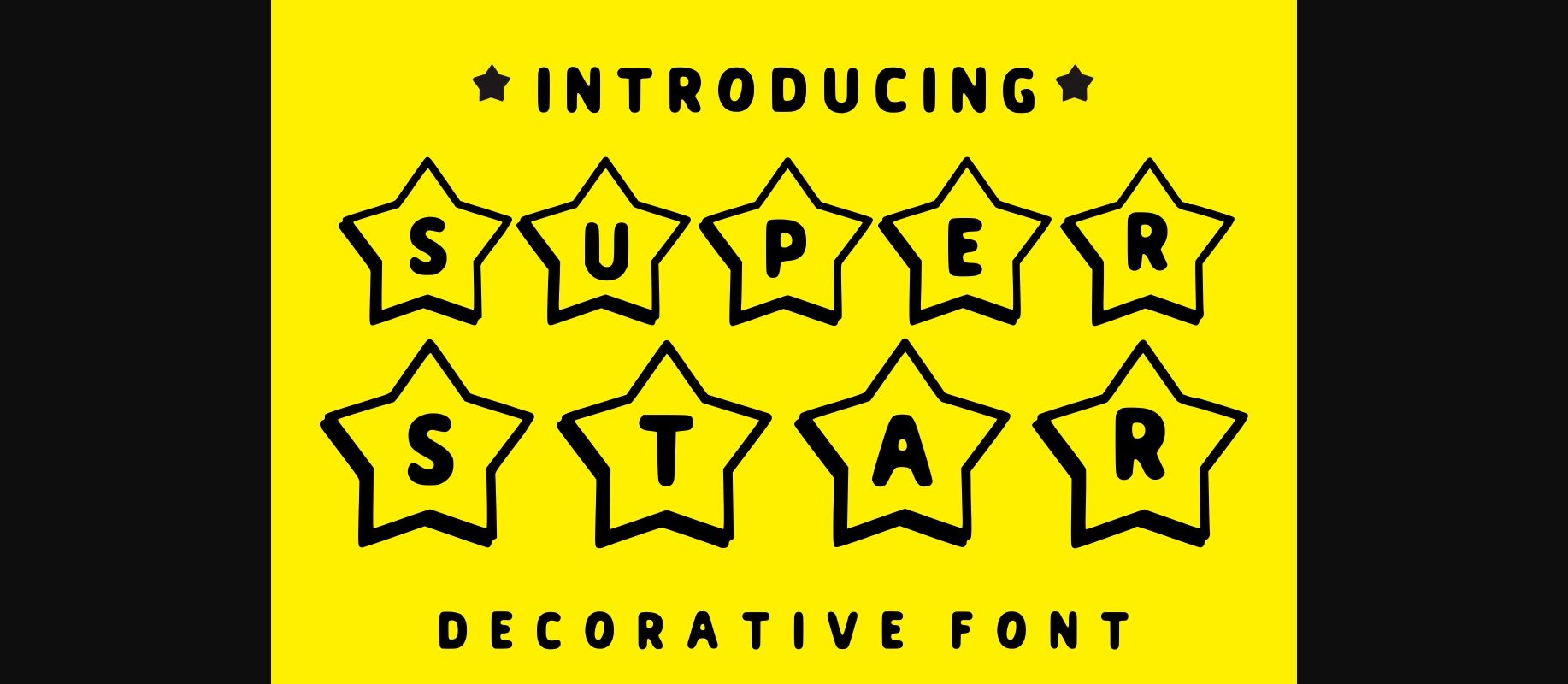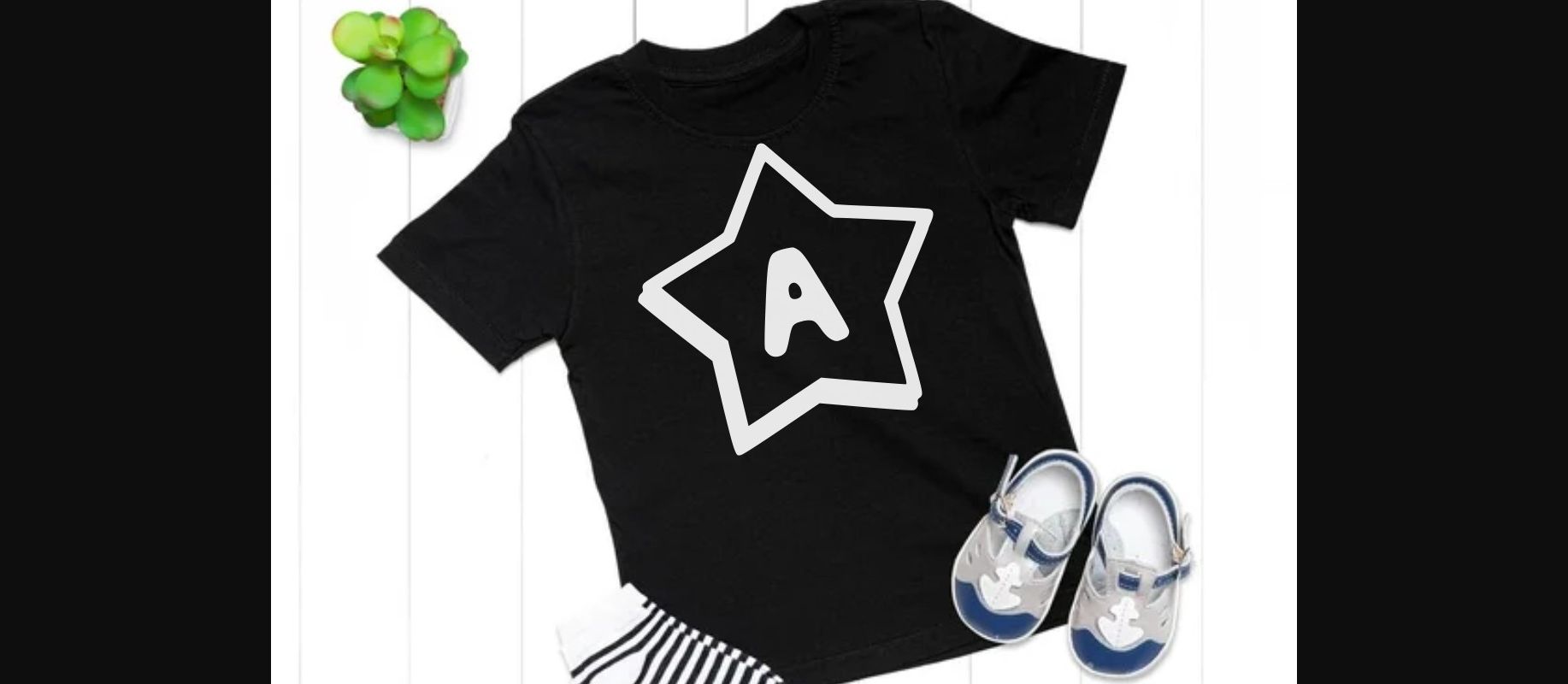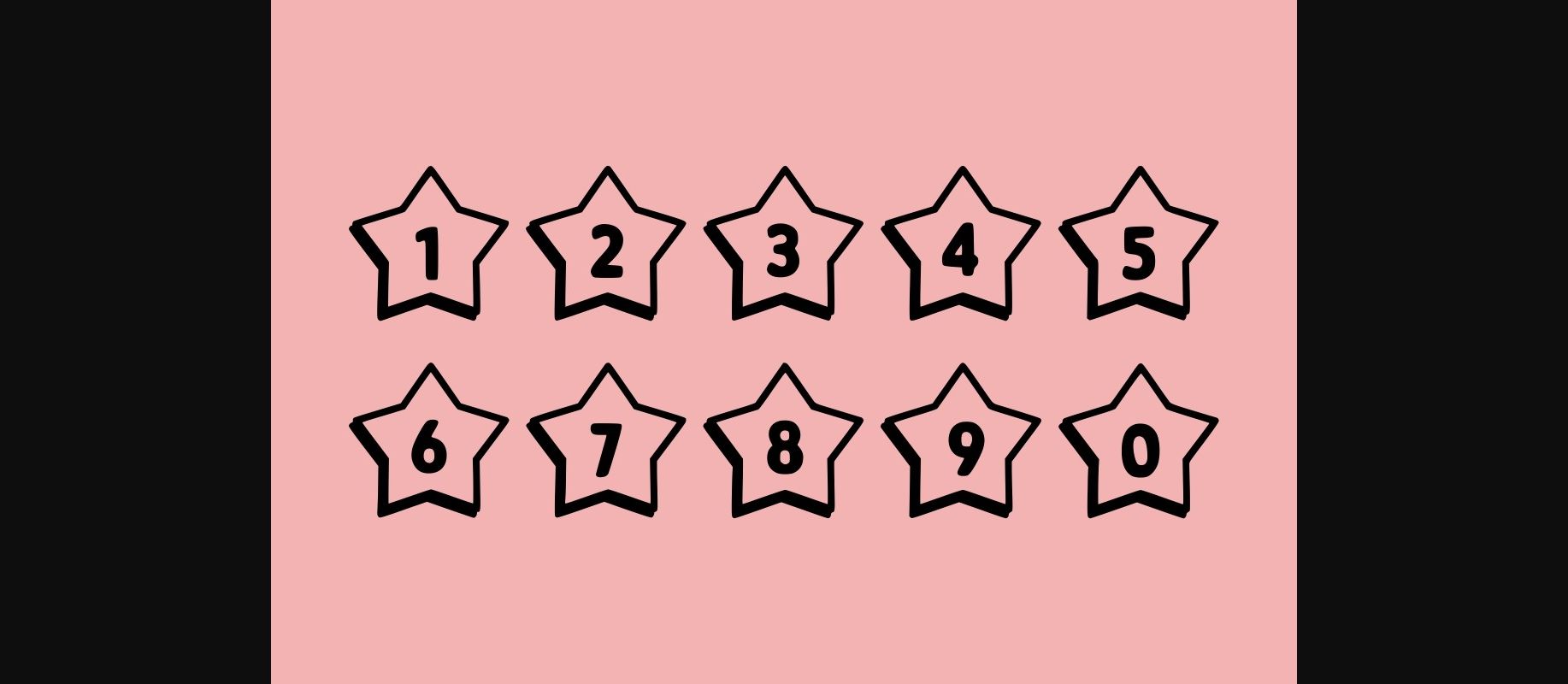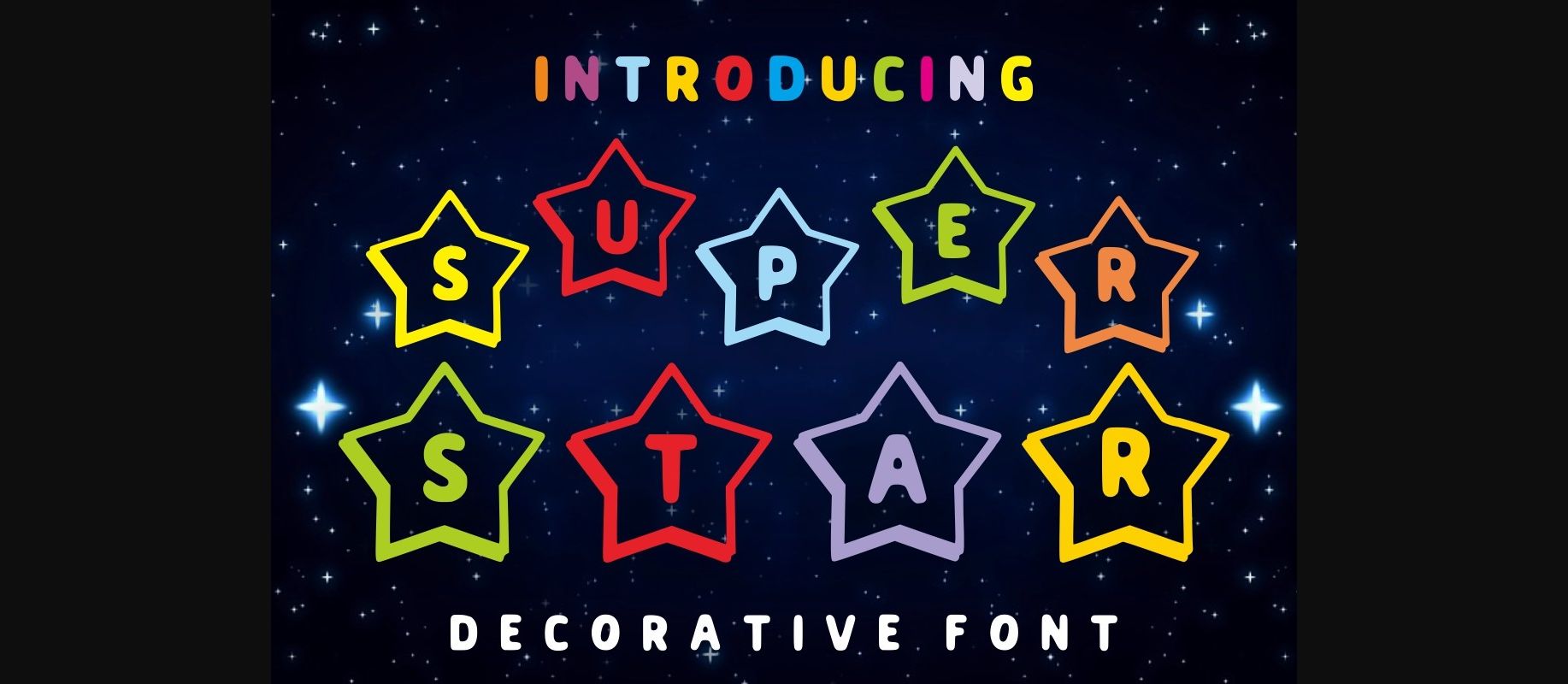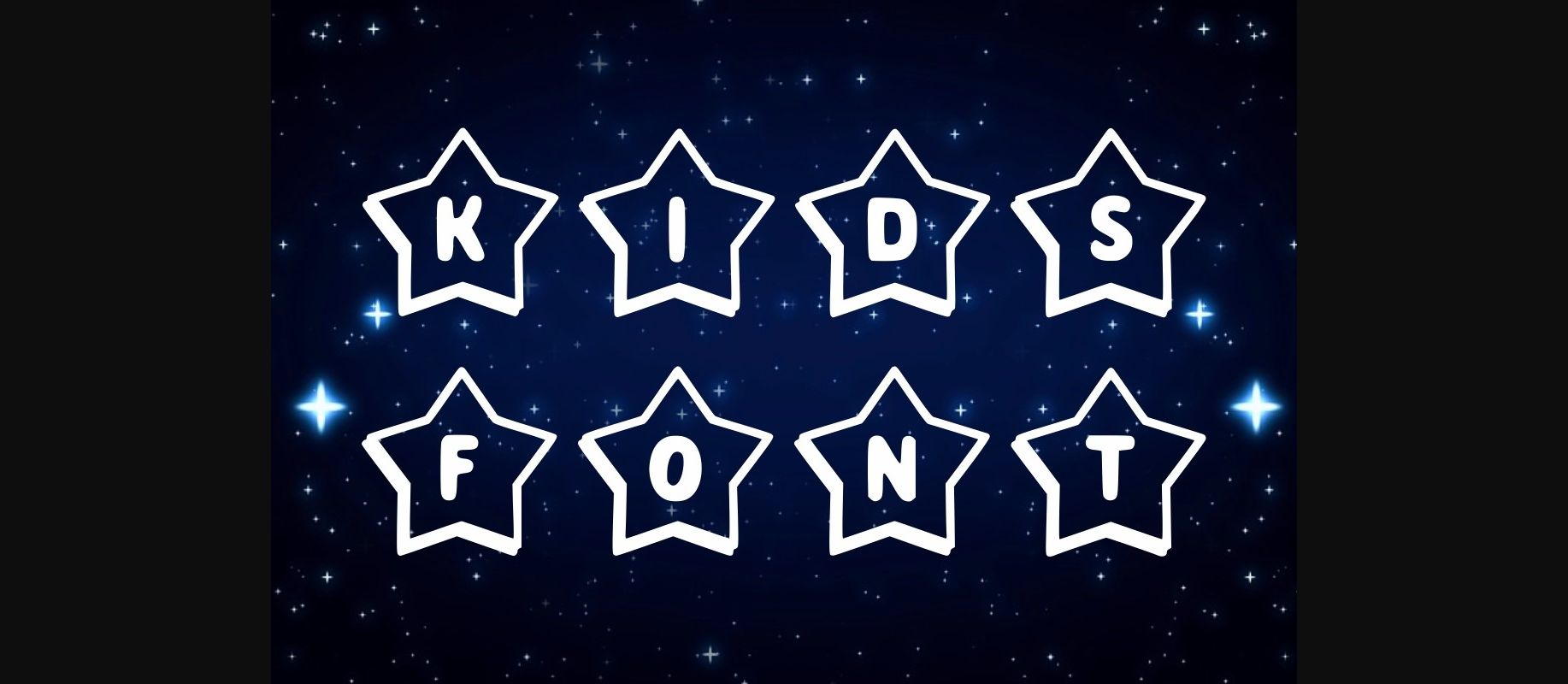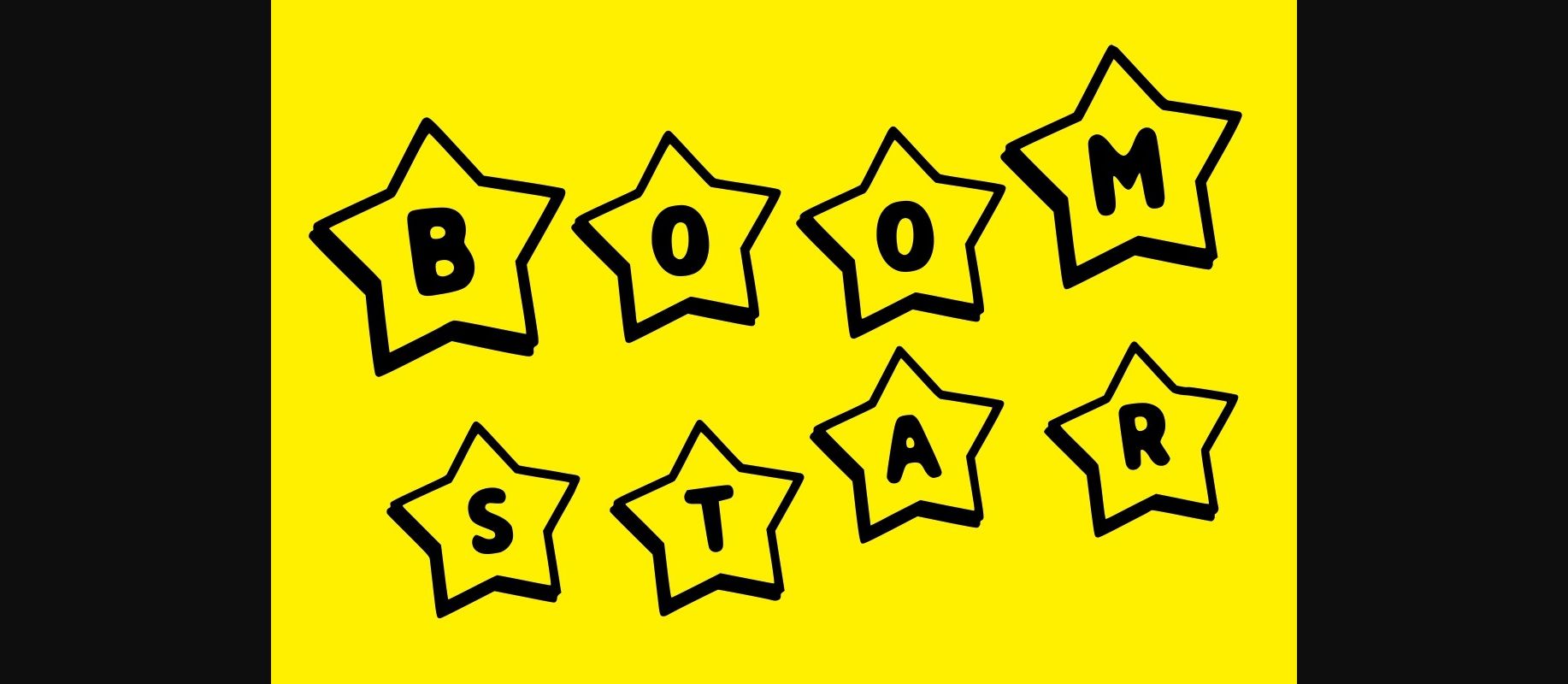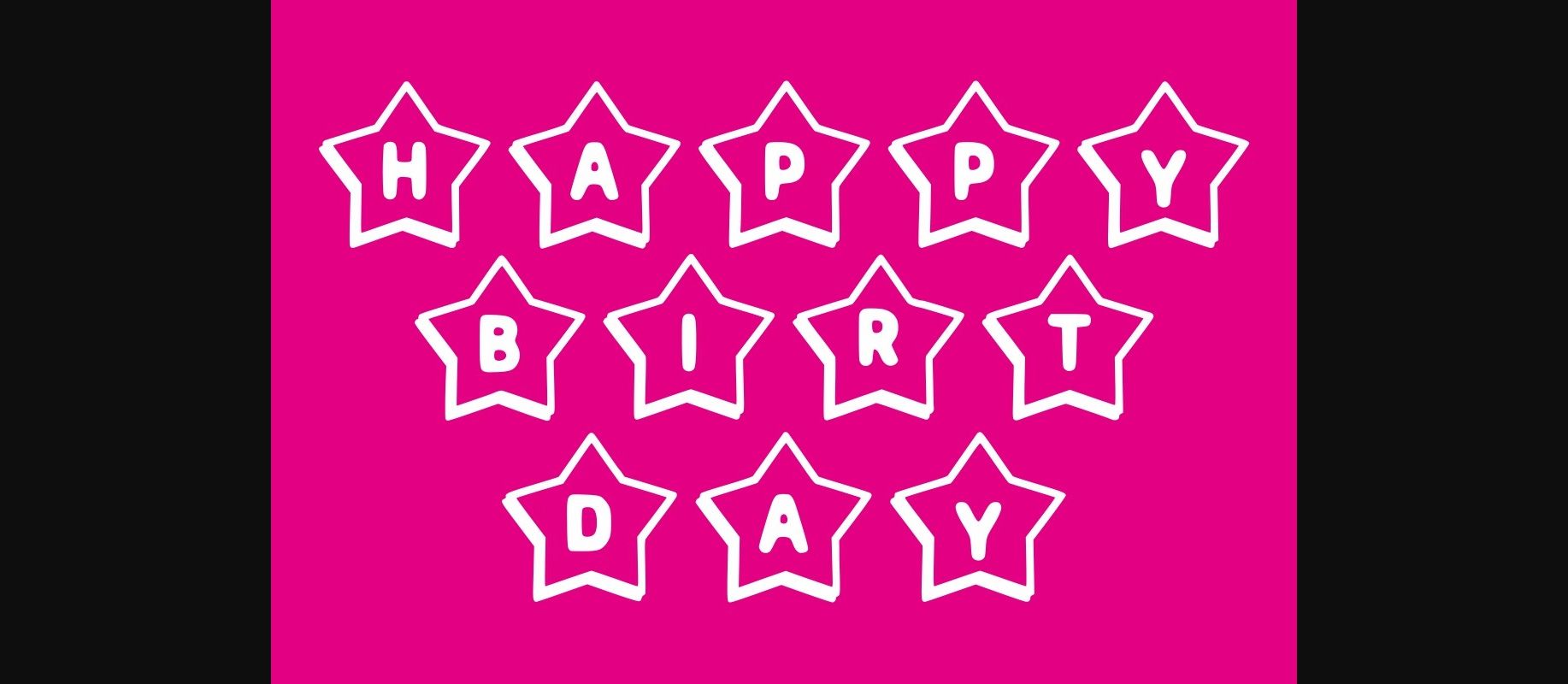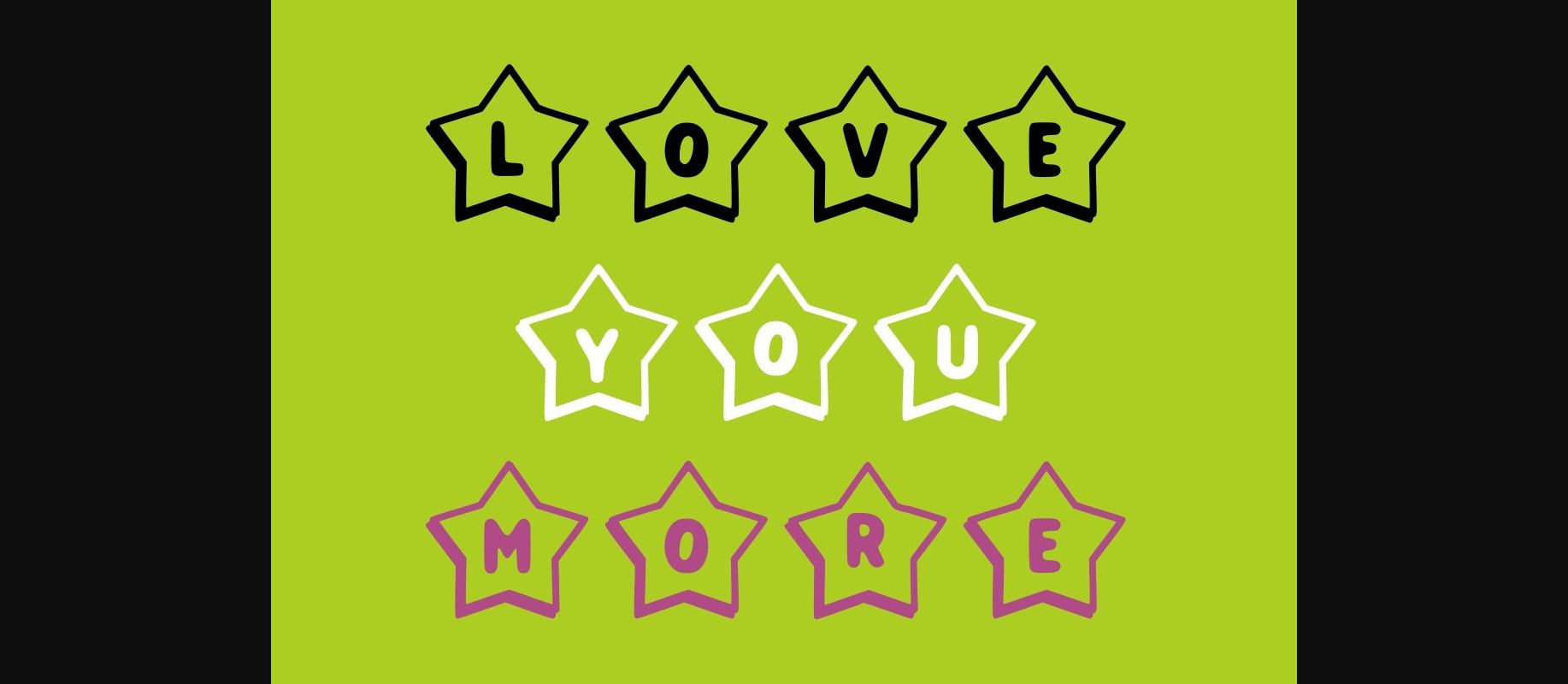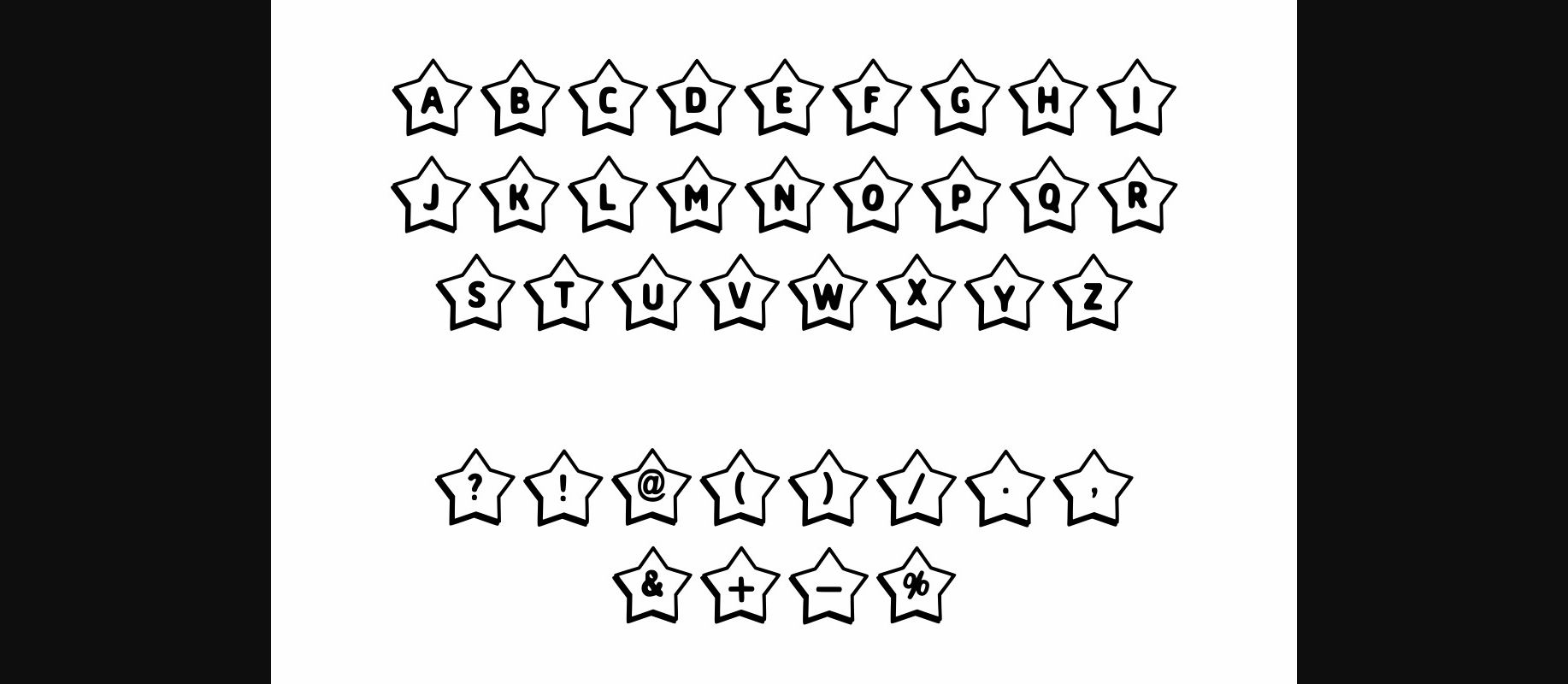
Super Star Font
About Super Star Font
Super Star – quirkiness and authenticity decorative font. This enchanting decorative font with star frames will turn any creative idea into a true standout. Get creative with its childlike playfulness, and use it to brighten up any kids and school project!